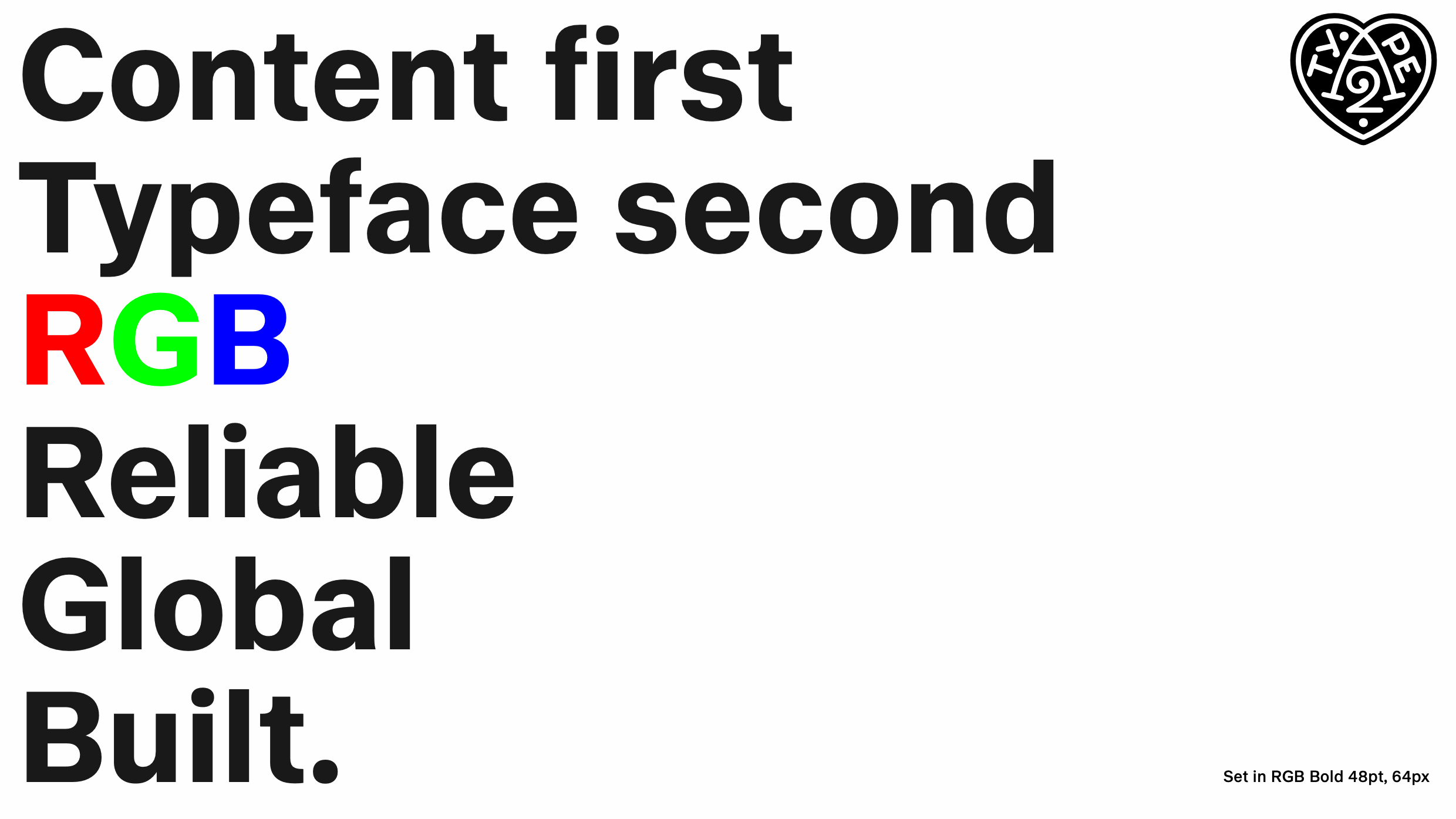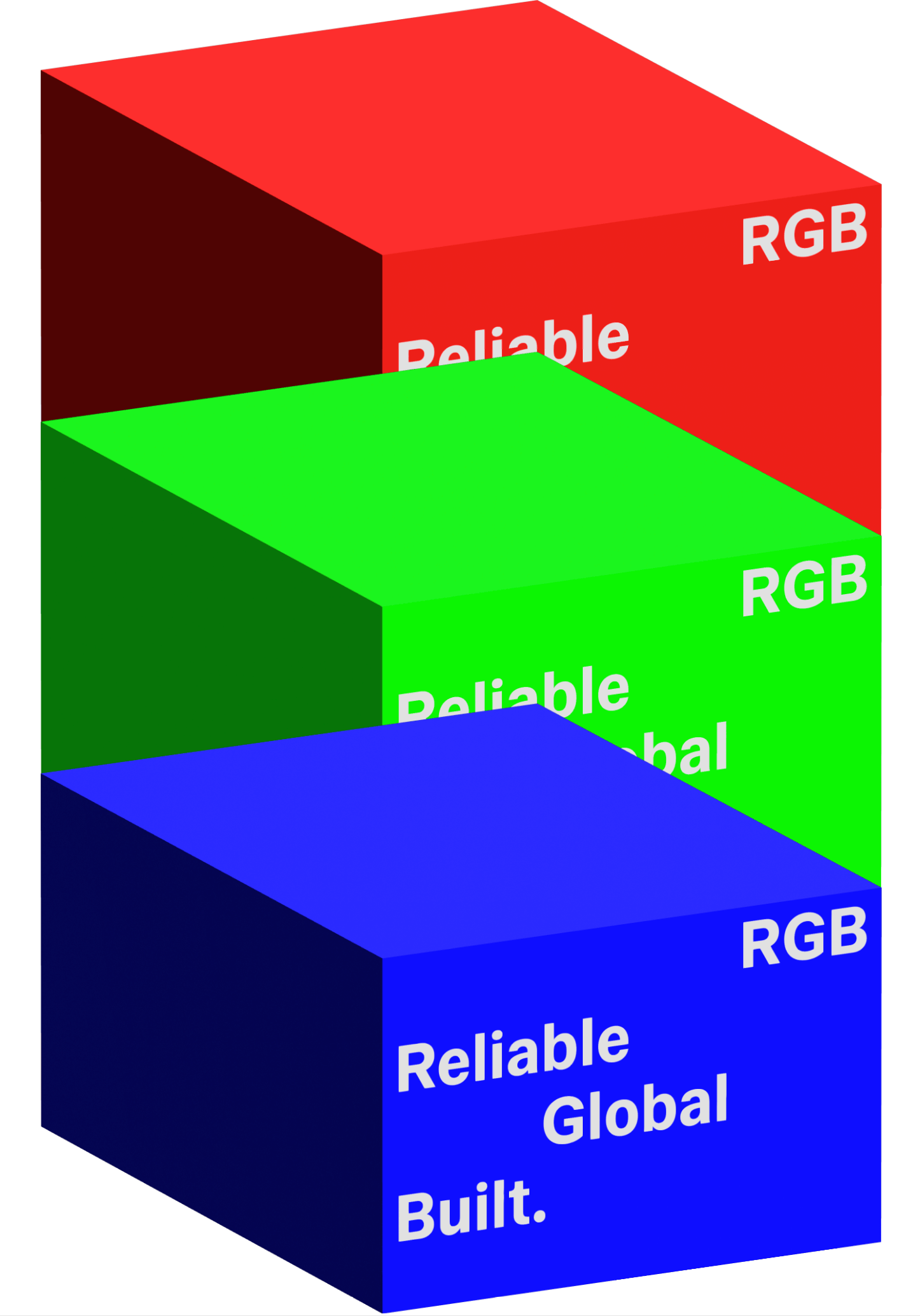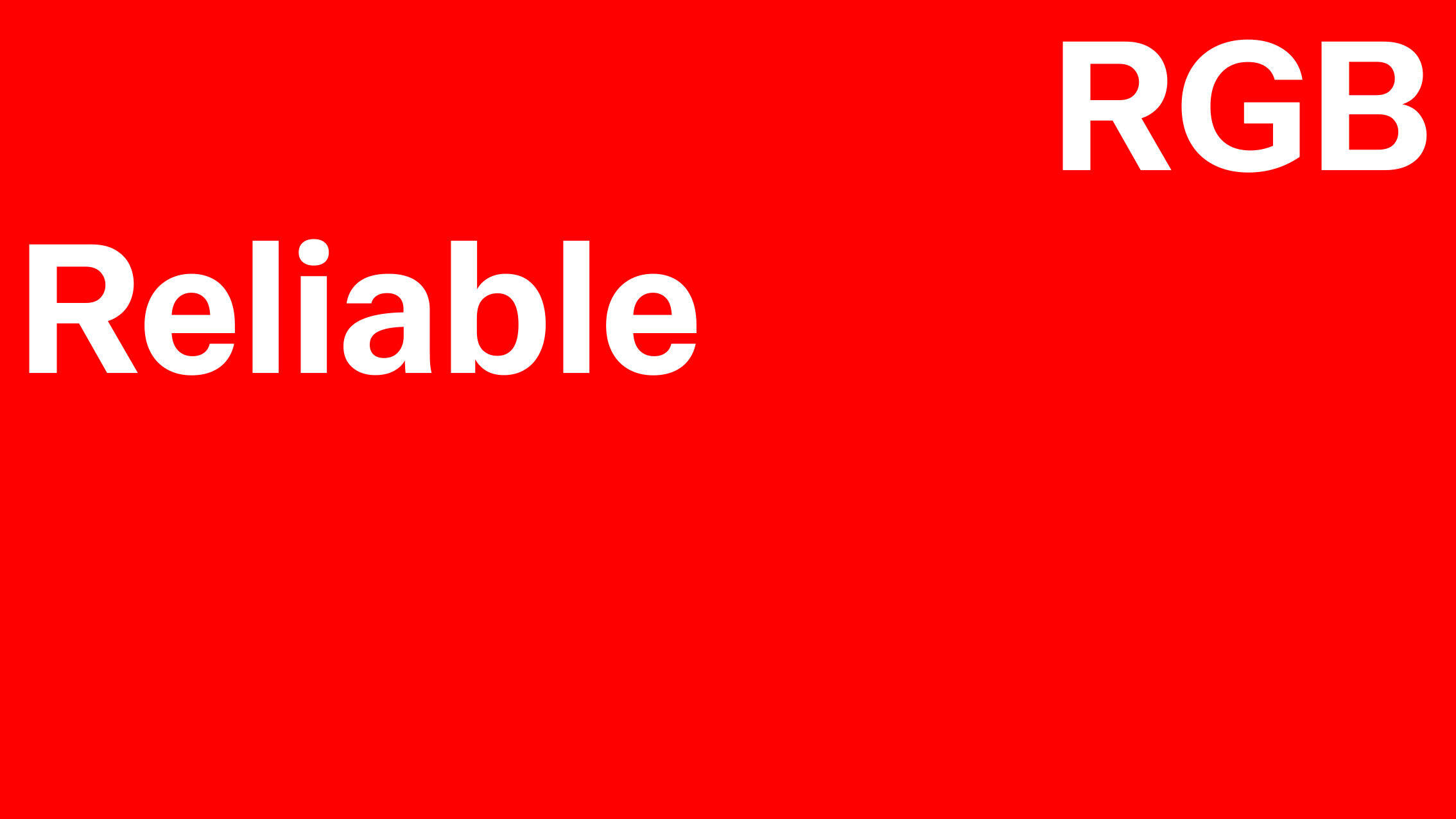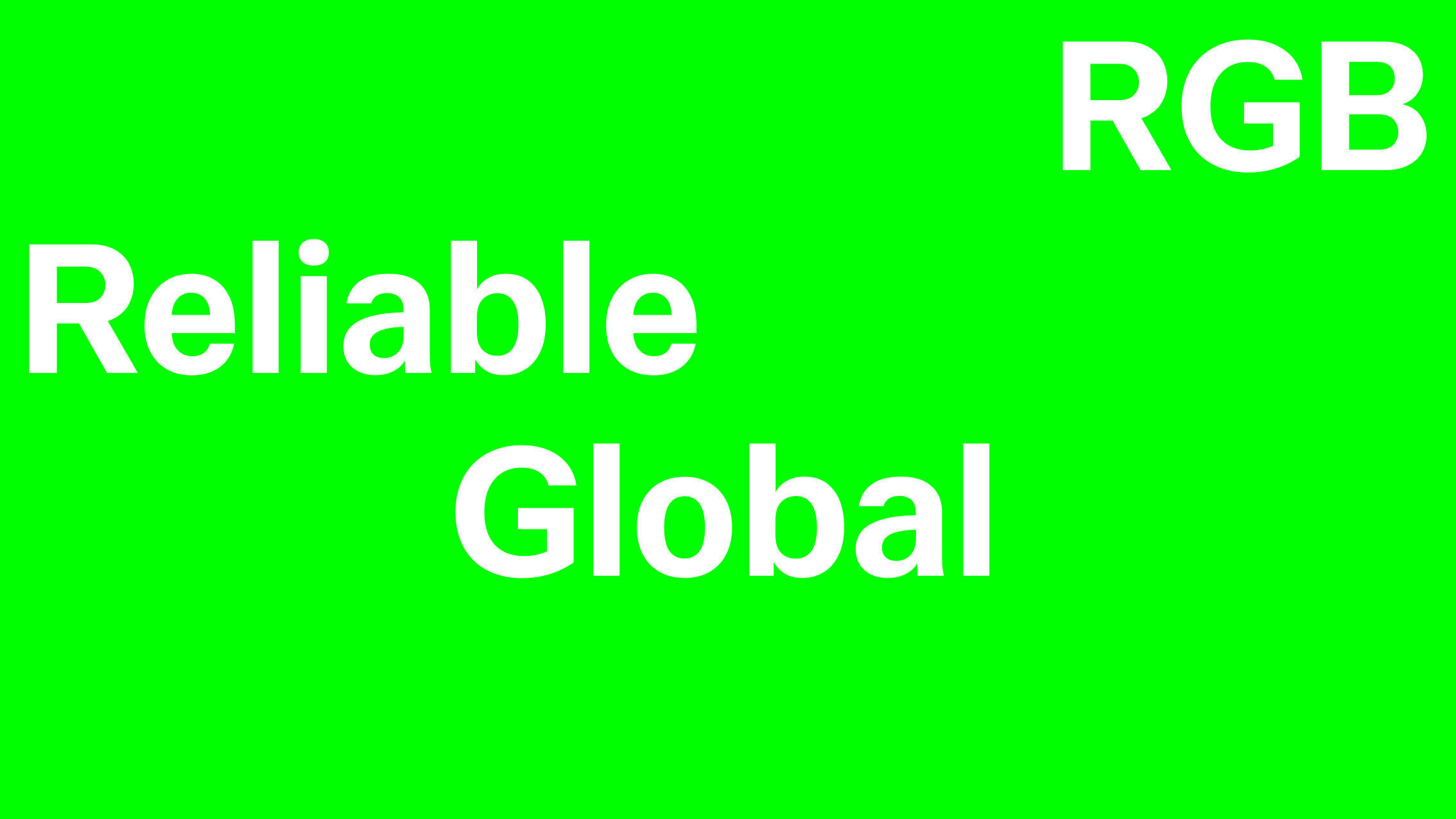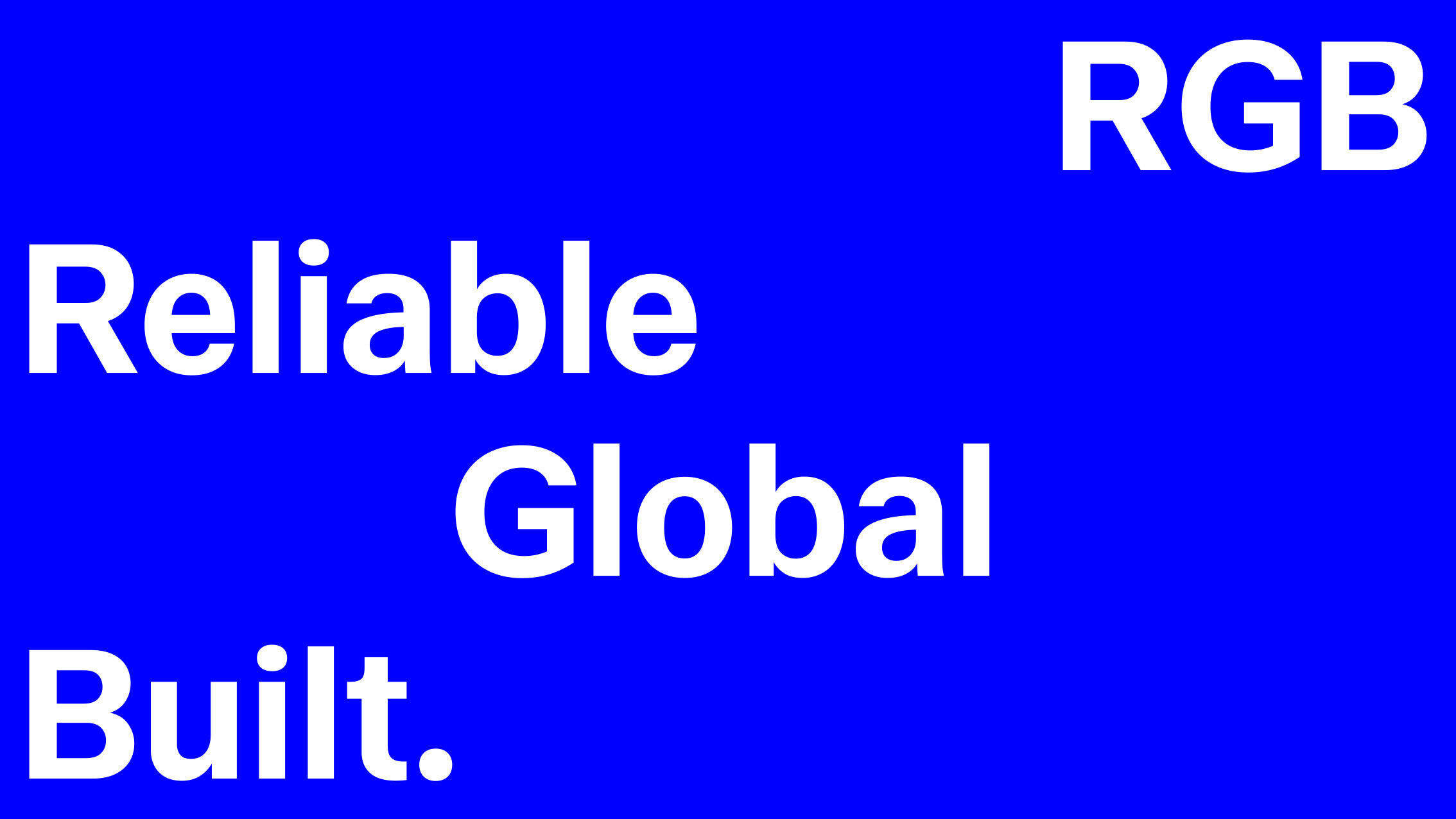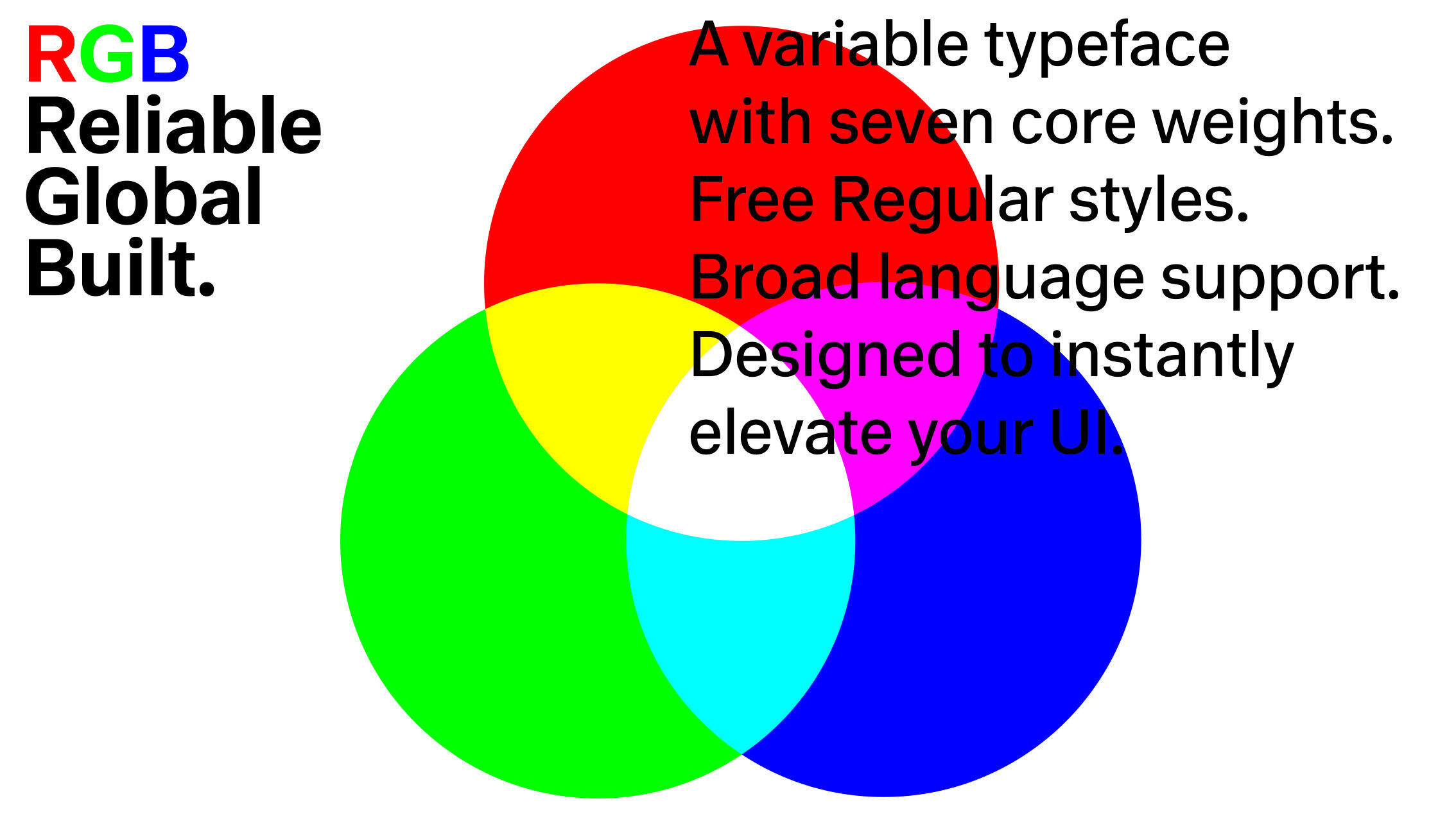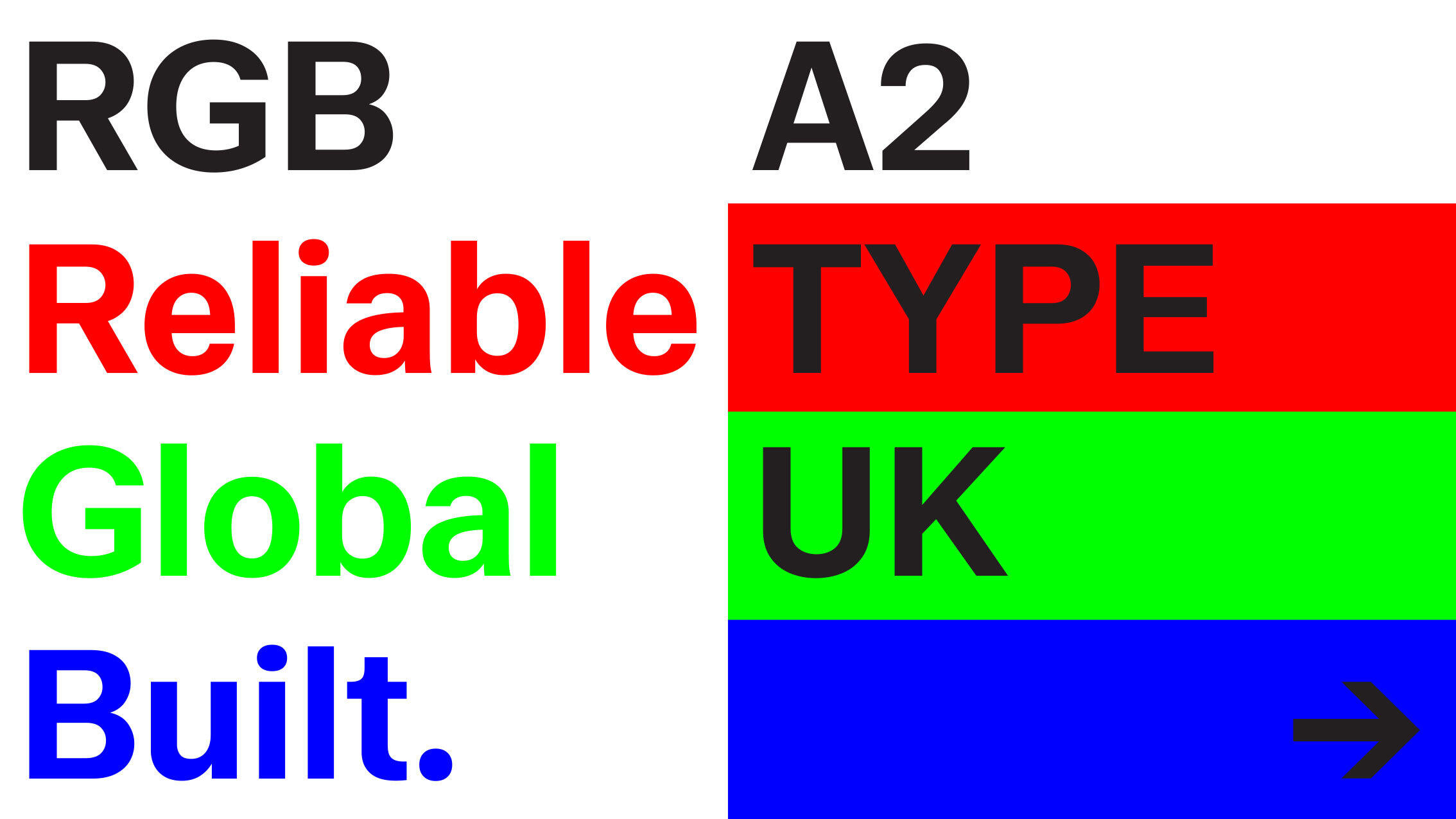
RGB, a new font, May 2026 — Why did it take so long?
As with many of our fonts, details are paramount. This is where we spent our time. Our typefaces are recognised by how they look – a certain DNA built into our library through craft and experience. Sometimes a single letter defines a font. We asked ourselves: is anything missing? The answer was ‘a utilitarian sans’, built for screens and everyday use – from micro typography on medical packaging to digital products and documents that shape daily life. Through research, we wrote a brief for every glyph. Then we built it. It took time because we wanted to create something distinctly different from what we had done before. RGB isn’t referencing anything. It’s not nostalgic. It’s not expressive. It’s simply built for clarity, consistency, and scale. It behaves the same everywhere — across systems, platforms, and products. No surprises. Built for products used by millions, over years. It doesn’t flex. It doesn’t brand-speak. RGB works as hard as your interface does. It’s the typeface we’ve used throughout this website. RGB isn’t referencing anything. It’s not nostalgic. It’s not expressive. It’s simply built for clarity, consistency, and scale. It behaves the same everywhere — across systems, platforms, and products. No surprises. Built for products used by millions, over years. It doesn’t flex. It doesn’t brand-speak. RGB works as hard as your interface does. It’s the typeface we’ve used throughout this website.